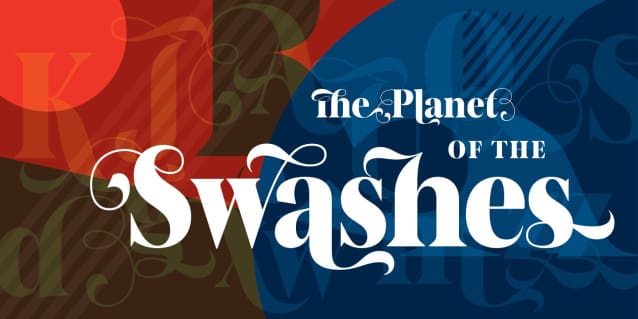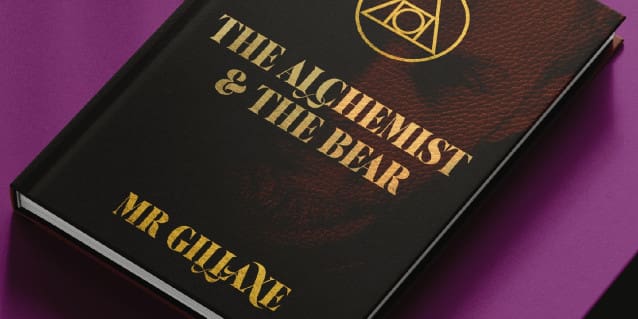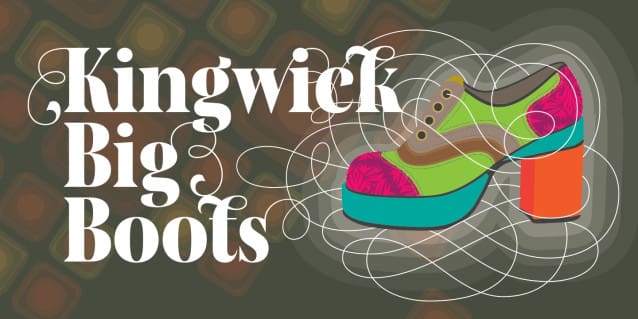
Kingwick Big Boots Font
Kingwick Big Boots Font is a bold, semi-condensed display font that features flared serifs and a generous contrast between thick and thin strokes.
Packed to the gills with alternatives, swash caps and ligatures, plus a set of small caps, this is a font that knows how to mix business and pleasure. The design combines classic English elegance with modern vibes, a sprinkle of fun and a cheeky pinch of nostalgic Soho style. Imagine a bunch of quiff-haired teddy boys and brightly coloured punks holding a swash-off outside Ronnie Scott’s Jazz Club – nice.
A versatile display font, Kingwick Big Boots is a great choice for projects requiring a strong yet compact serif design for its message. Use it for book covers, posters, logo designs, advertising, humongous signage, websites, editorial design and love letters to your favourite place or band.
The name Kingwick comes from an amalgamation of two streets in Soho, London: Kingly Street and Berwick Street. The font is a series of love letters to one of the capital’s most (in)famous, diverse and eclectic areas, a place that holds many happy memories for me.
Although Kingwick Big Boots is a single font, it will become part of a larger typeface family that will eventually comprise text, subhead and display variants.